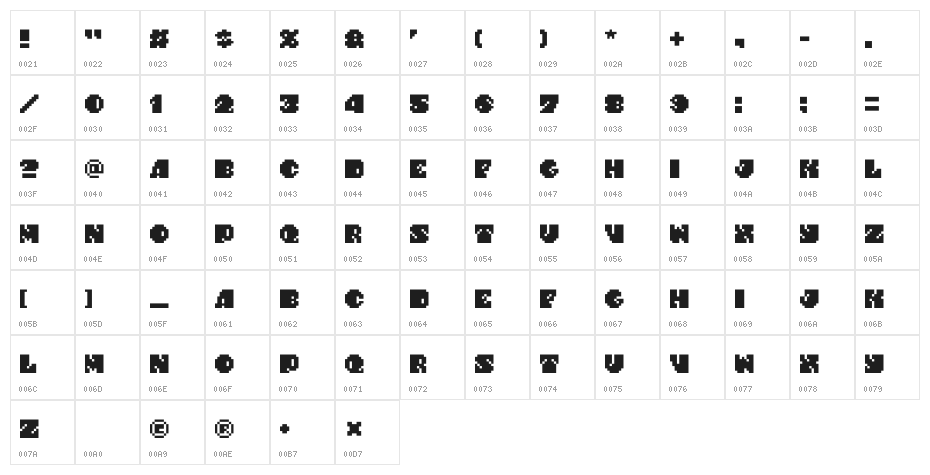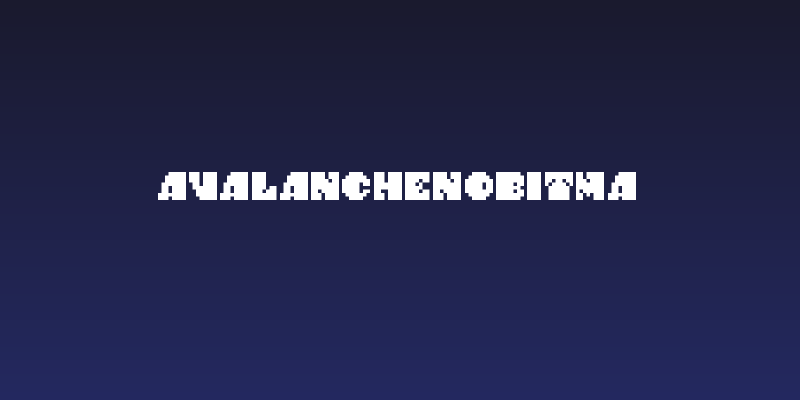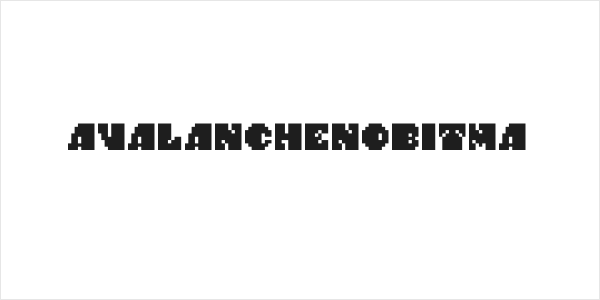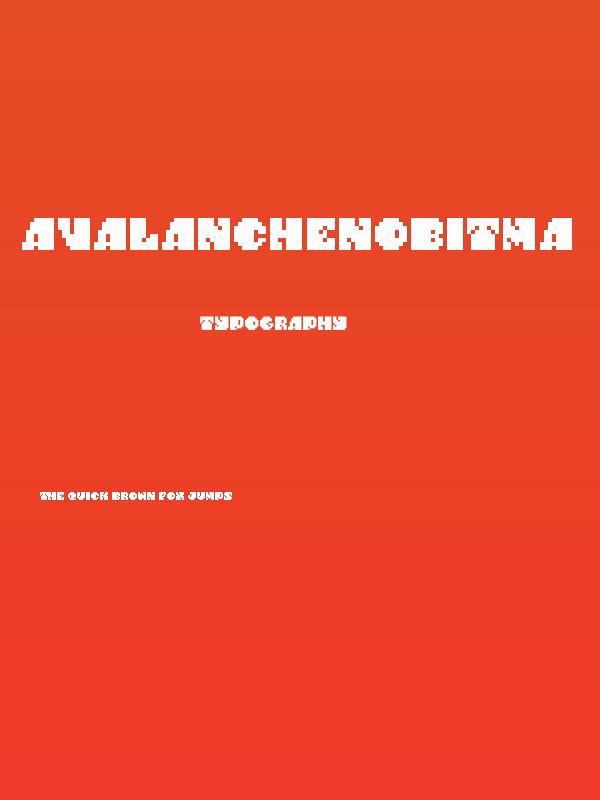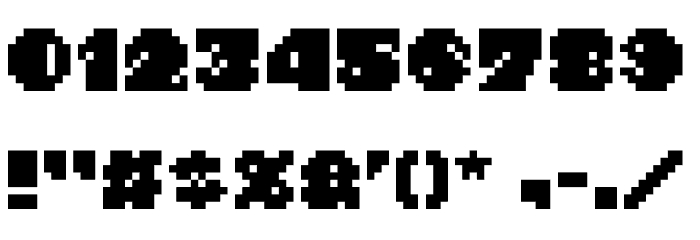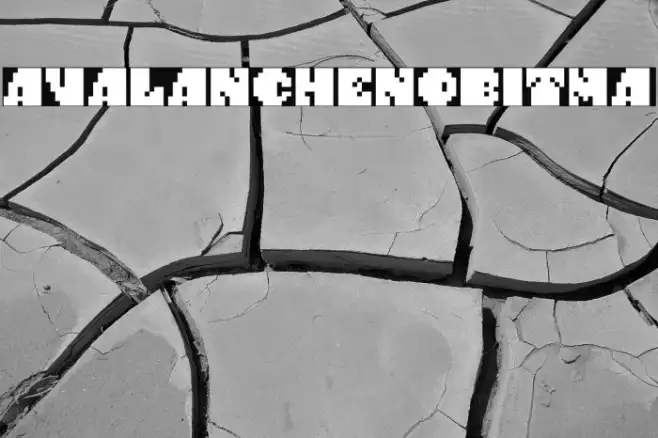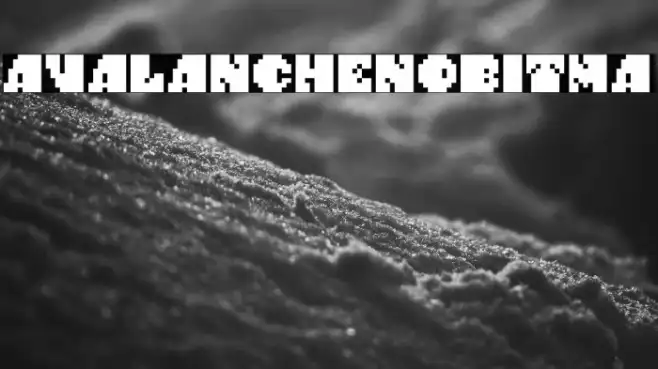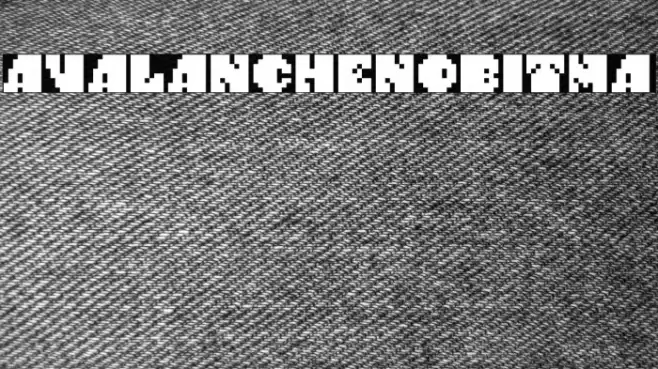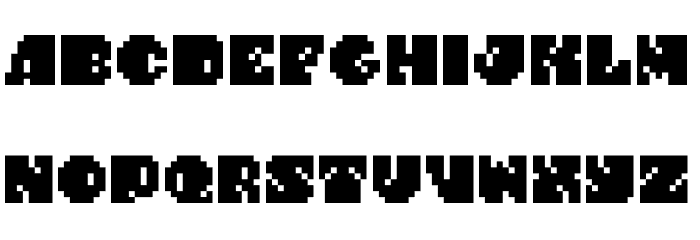
AvalanchenoBitma Font
AvalanchenoBitma Description
This font features a bold, pixelated style reminiscent of retro video games or digital displays. Each character is constructed with a blocky, geometric design, giving it a distinct, eye-catching appearance. The uppercase and lowercase letters maintain a consistent height, contributing to a uniform look across text. Numbers and special characters follow the same pixelated pattern, ensuring a cohesive style throughout. The font's unique aesthetic makes it ideal for projects that aim to evoke nostalgia or a digital, tech-inspired theme.
| Proposed Projects | Ideal for video game design, digital art projects, retro-themed posters, and tech-inspired branding. |